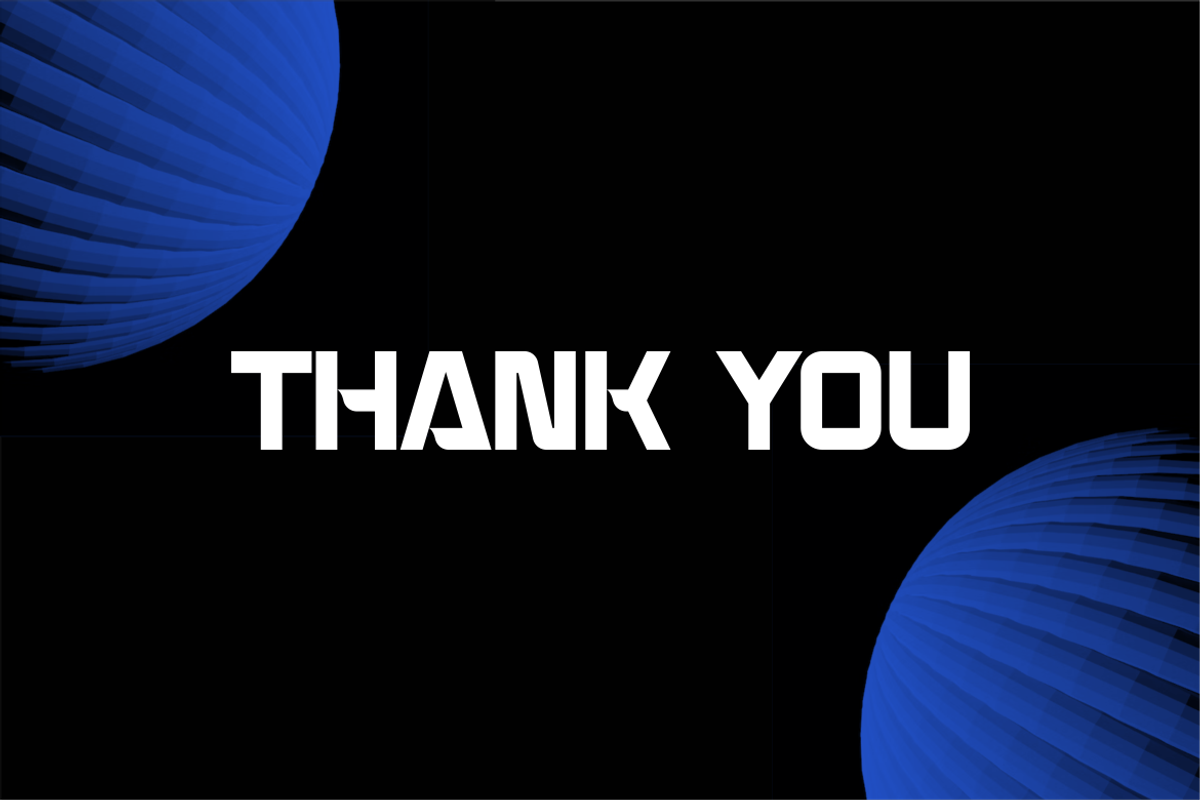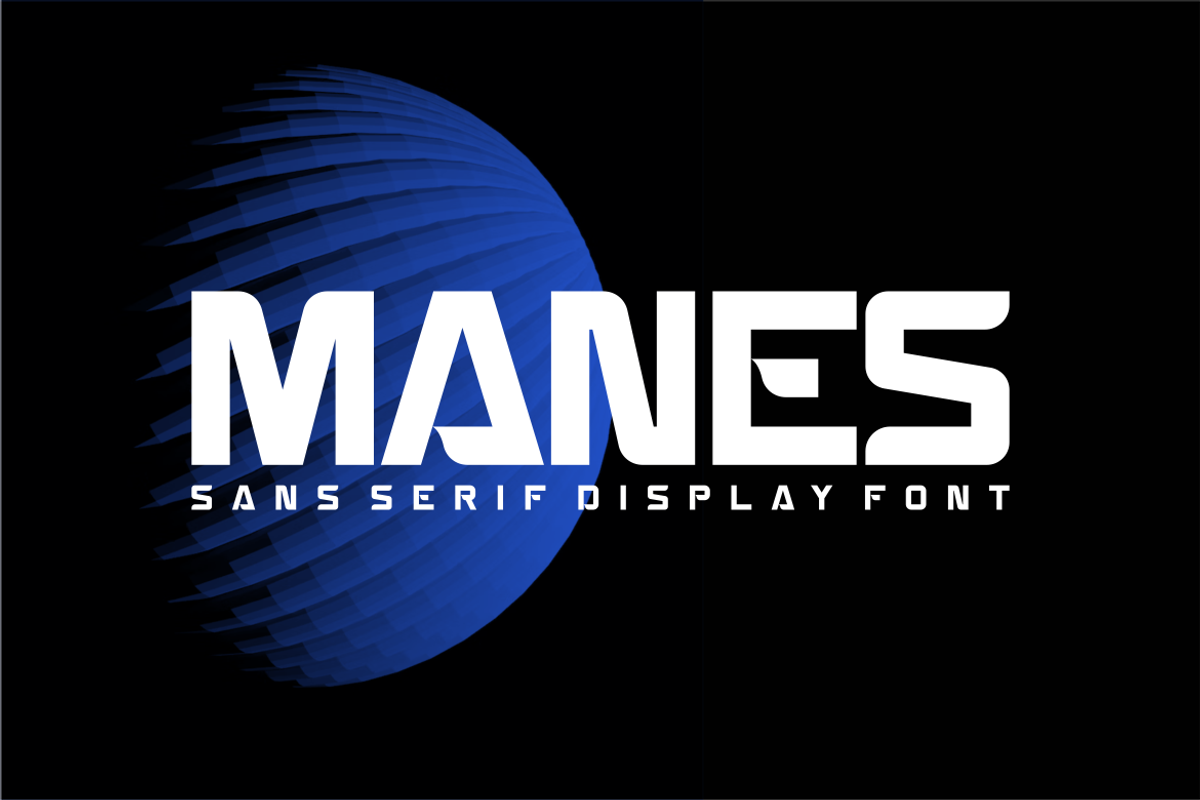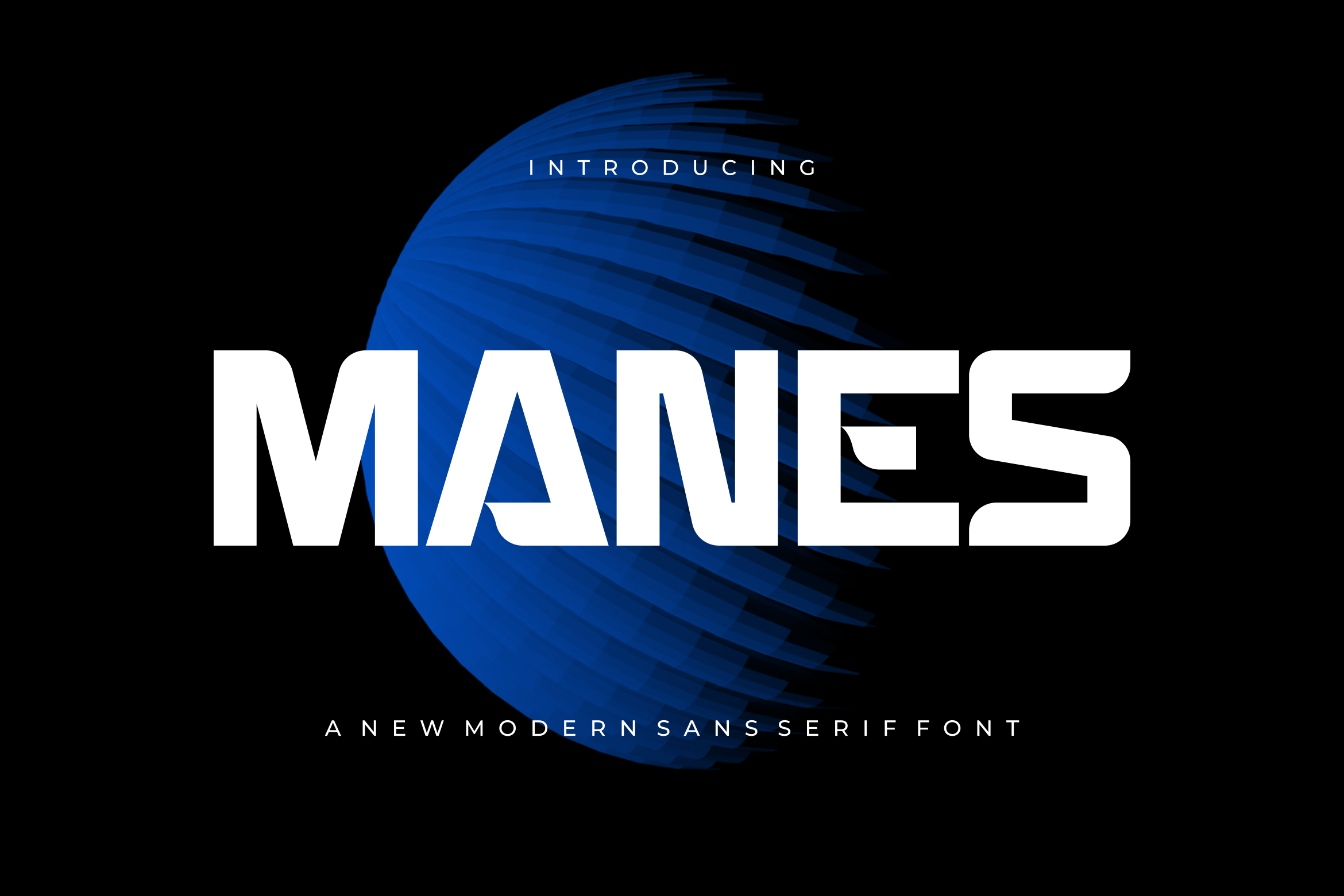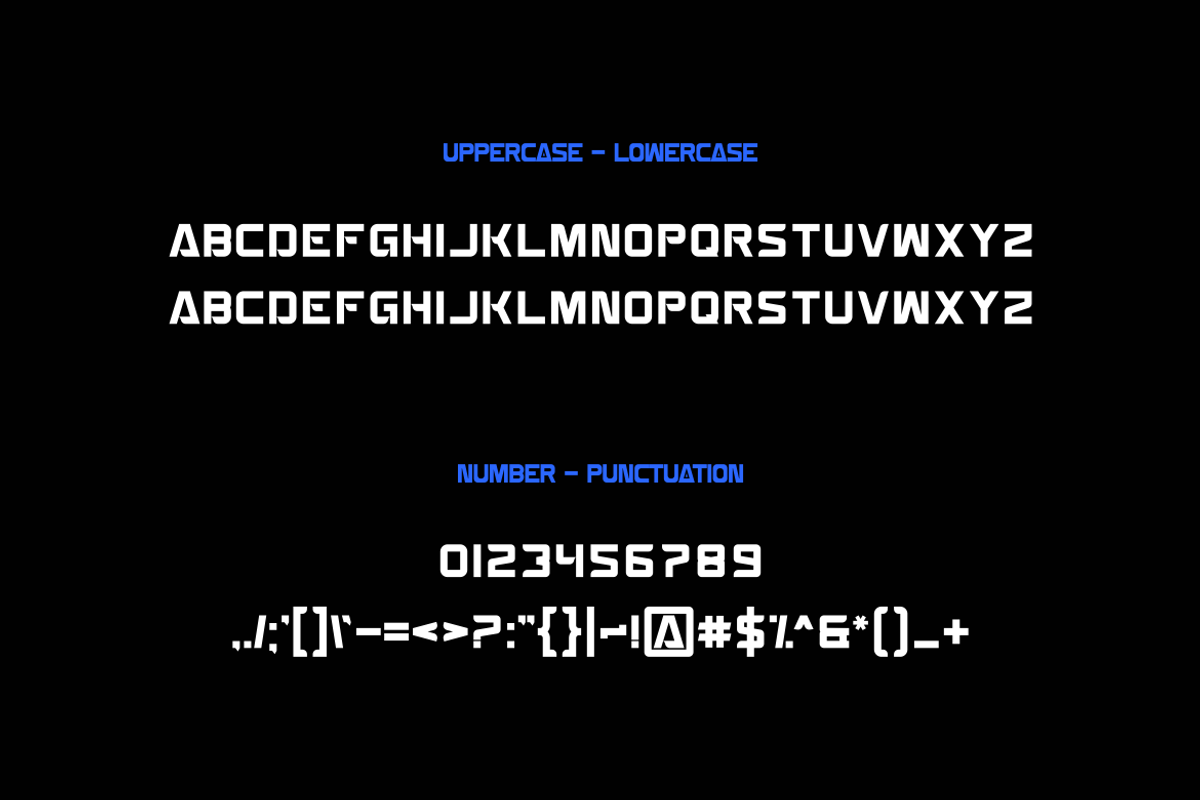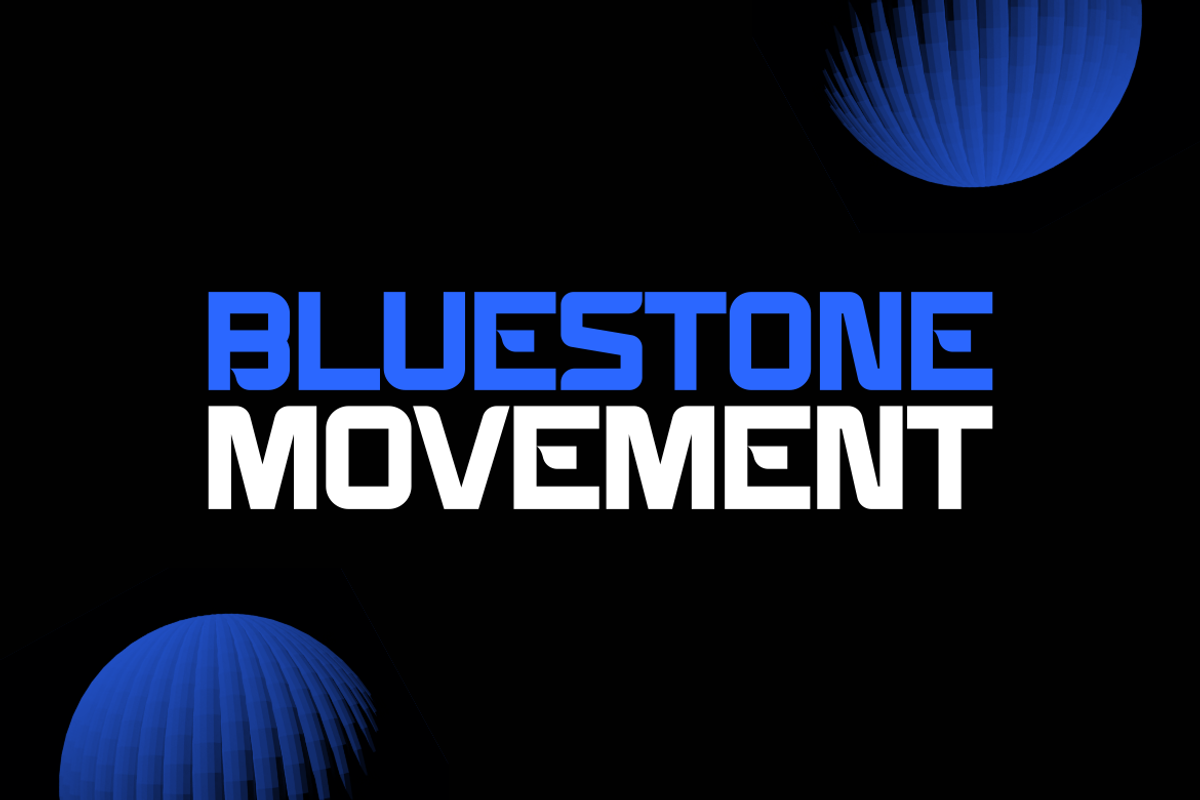
Manes - Font
- Modern Font is a bold and authentic display font. The font is suitable for any branding project like logo, t-shirt printing,, and many more. outstanding in a wide range of contexts.